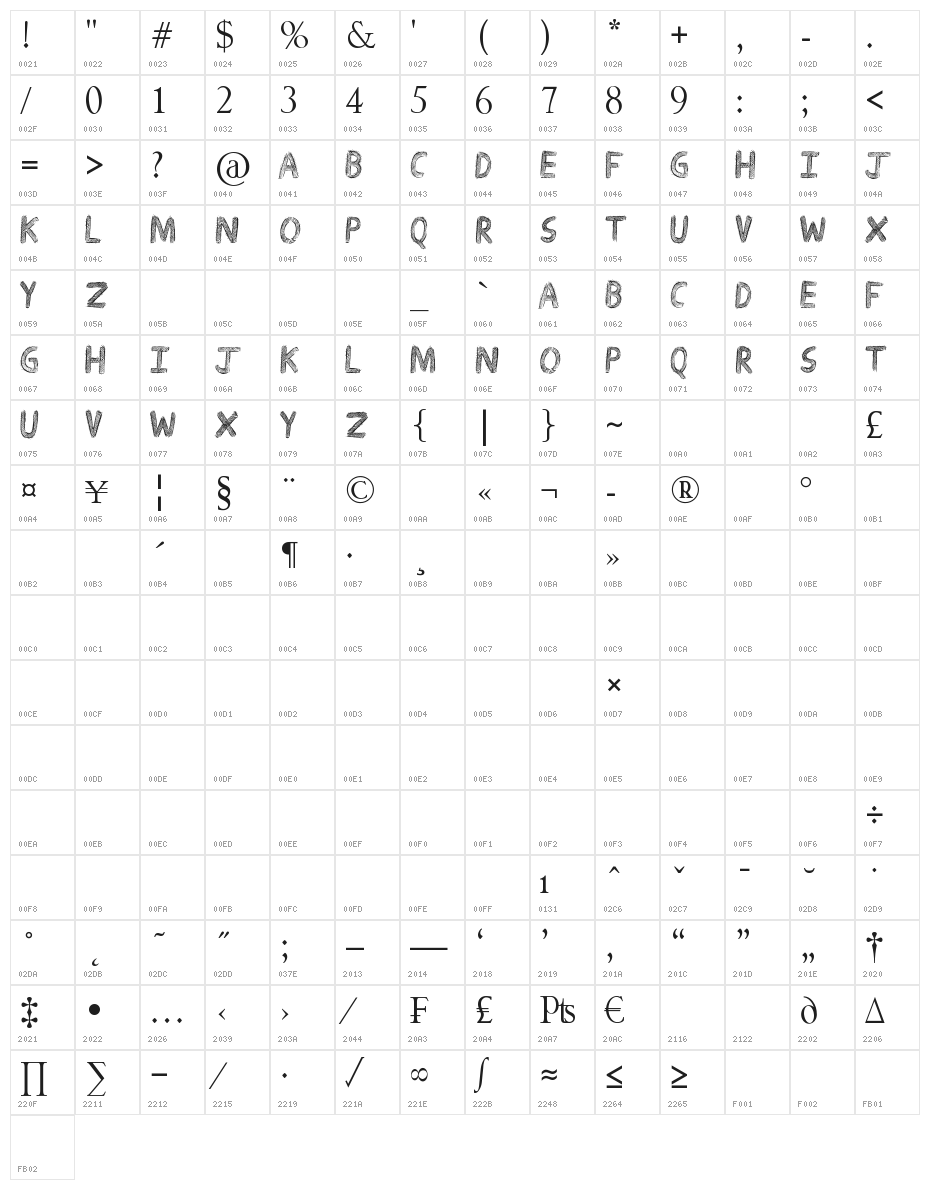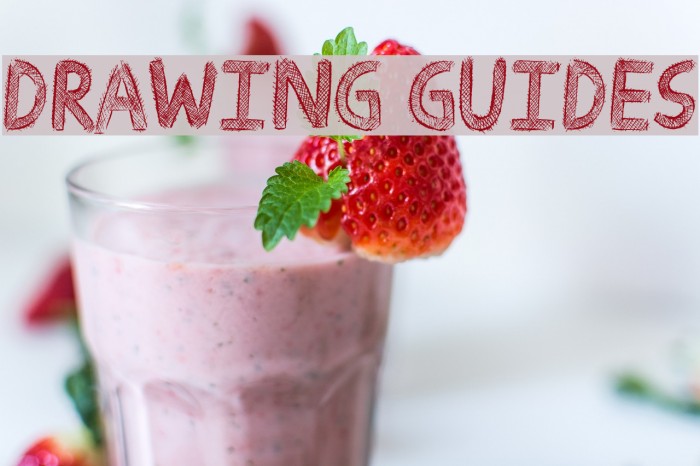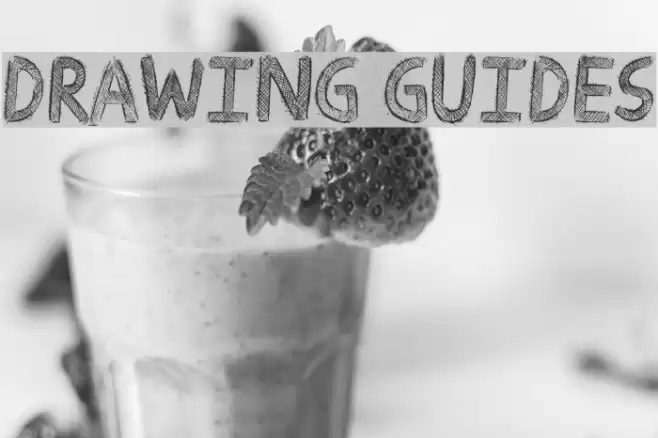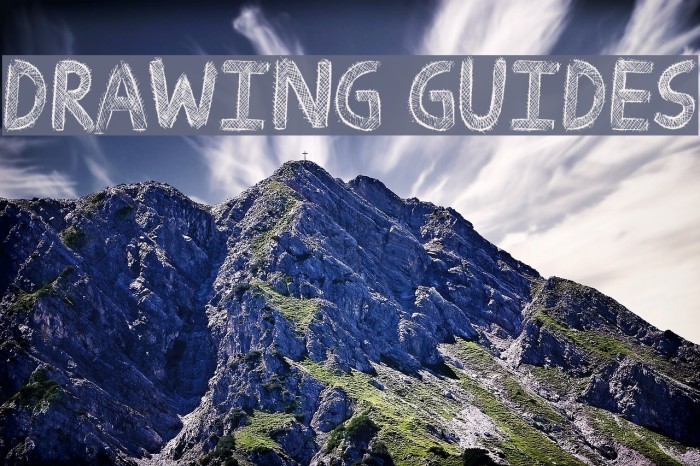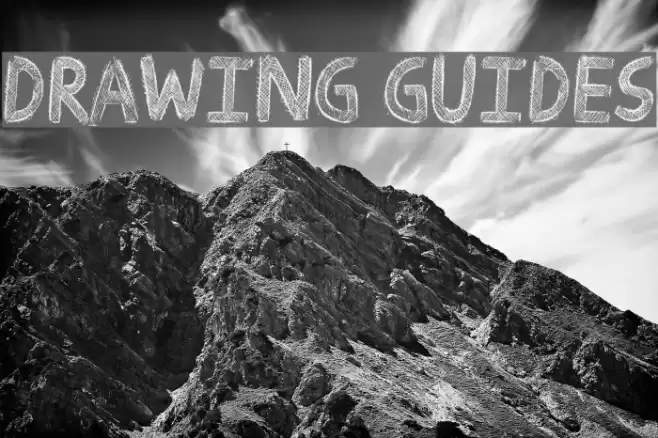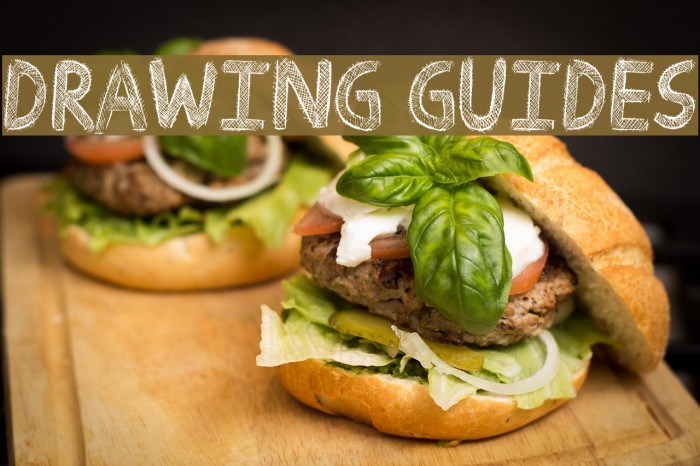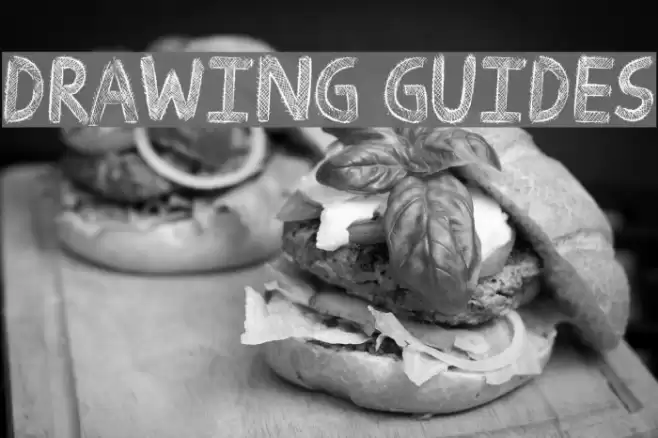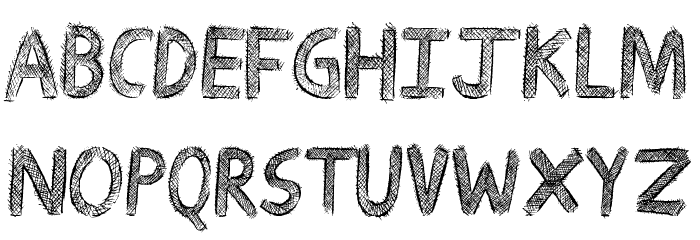
Drawing Guides Font
| Style général | Artistic, Playful |
| Cas d'utilisation | Headlines, Logos, Creative projects |
| Projets proposés | Ideal for creative projects such as posters, invitations, and branding materials that require a unique and artistic touch. |